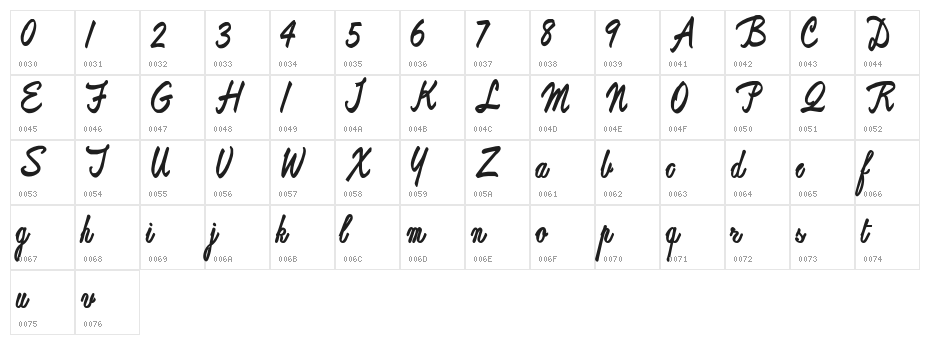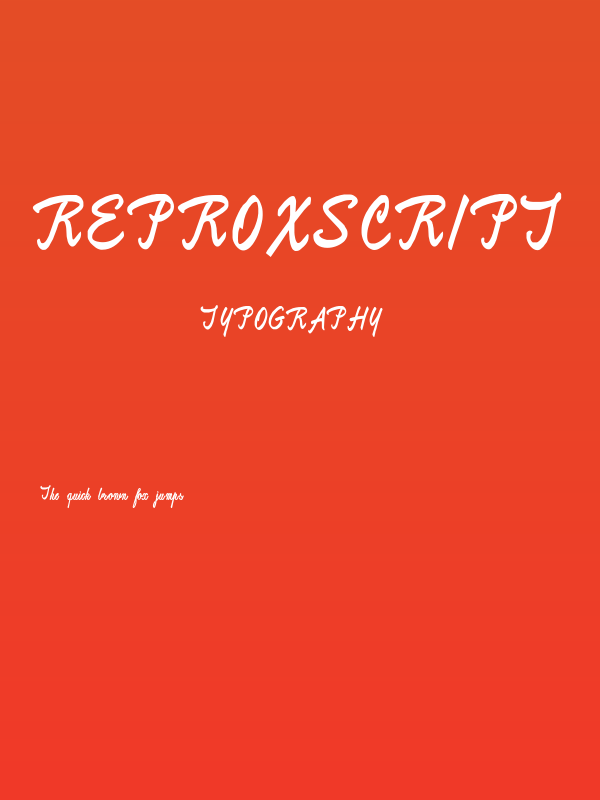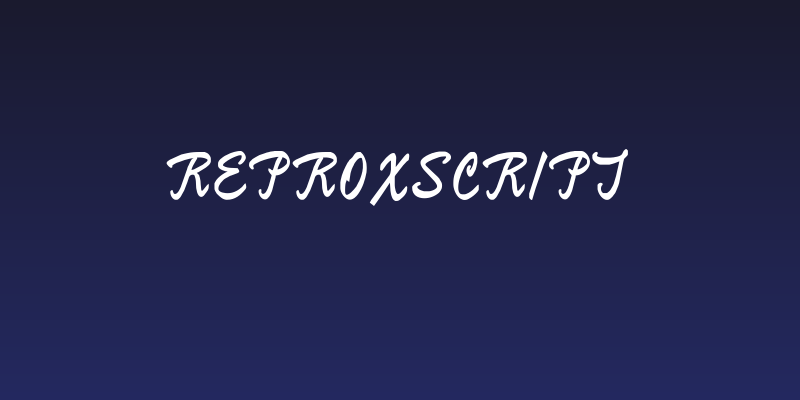
ReproxScript Font
ReproxScript Description
This font features a dynamic and flowing script style, characterized by its elegant and cursive letterforms. The uppercase letters exhibit a slight slant, adding a sense of motion and grace. The lowercase letters are smoothly connected, enhancing the script's fluidity and readability. Numbers are consistent with the overall style, maintaining the cursive flow. The font's design is reminiscent of traditional handwriting, offering a personal and artistic touch. Its bold strokes and smooth curves make it suitable for creative and expressive projects, where a touch of elegance and sophistication is desired.
| Overall Style | Elegant, Artistic |
| Use Case | Logos, Invitations, Greeting Cards |
| Proposed Projects | Ideal for wedding invitations, greeting cards, logos, and branding materials that require a personal and artistic touch. |